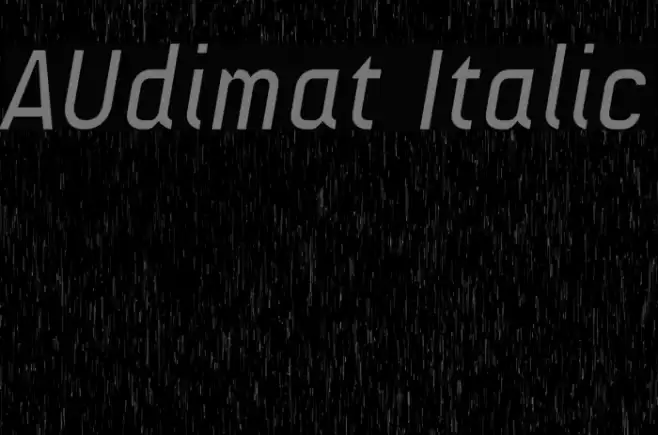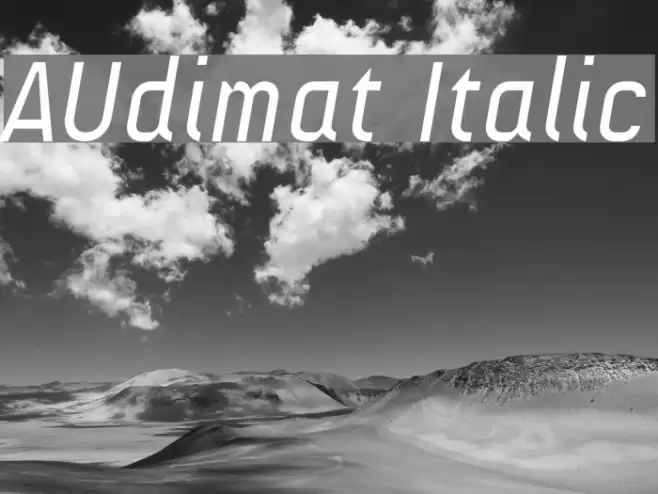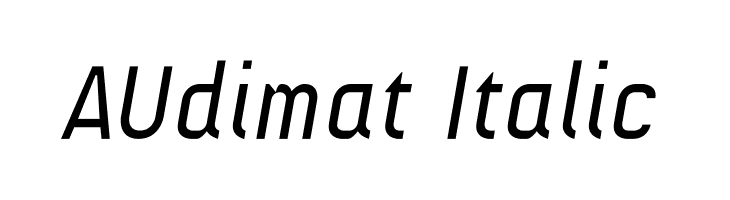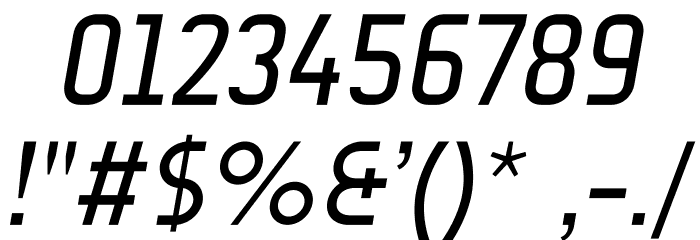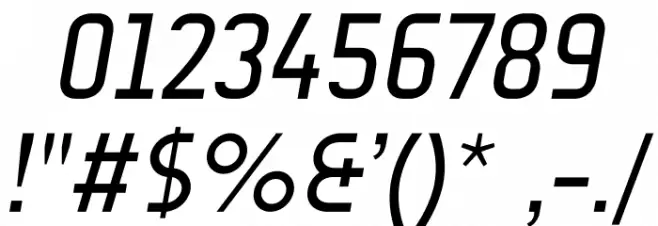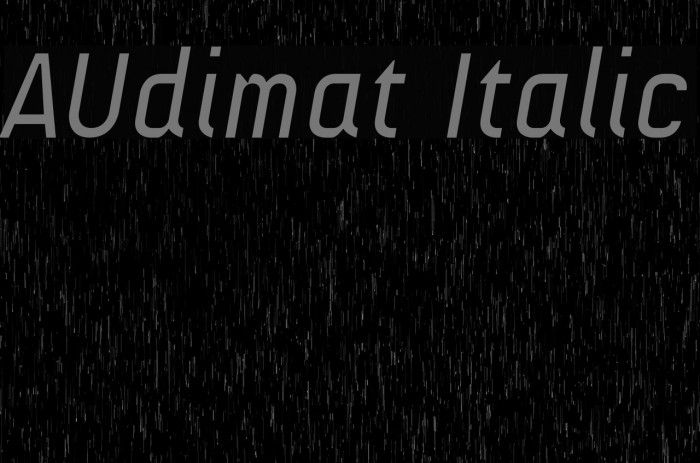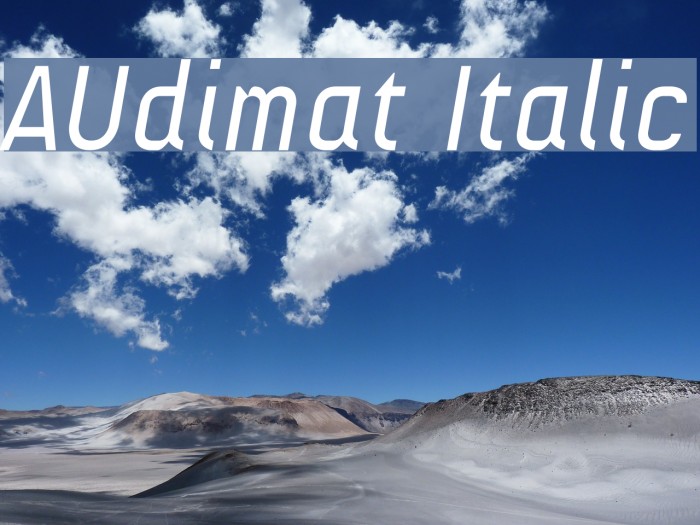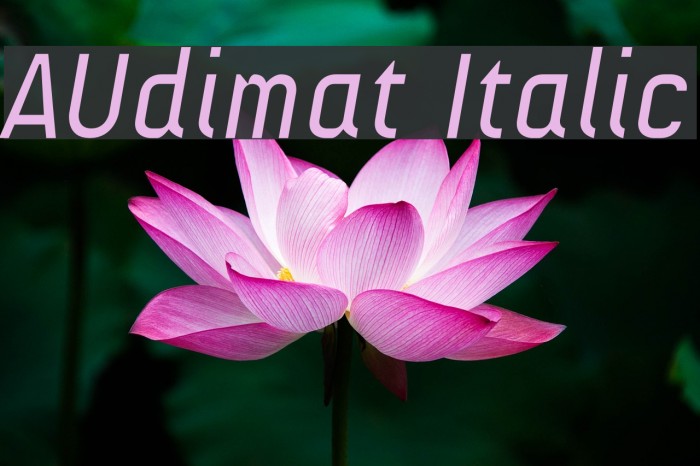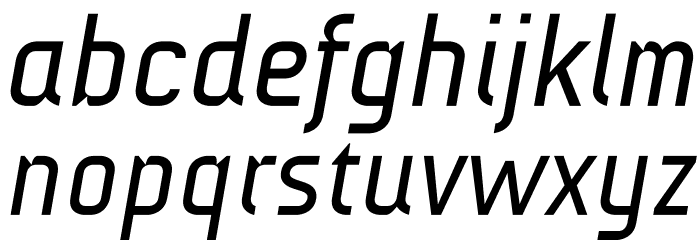
AUdimat Italic Font
AUdimat Italic Description
This font features a sleek, modern design with a slight italic slant, giving it a dynamic and forward-moving appearance. The characters are clean and streamlined, with a uniform stroke width that maintains consistency across both uppercase and lowercase letters. The numerals and special characters are designed to match the overall aesthetic, ensuring a cohesive look. The font's style is versatile, making it suitable for various applications where a contemporary and professional appearance is desired.
A modern, italic sans-serif font with a sleek and dynamic style from Uncategorized fonts.
- Proposed Projects: Ideal for branding, advertising, digital interfaces, and editorial design where a modern and professional look is required.